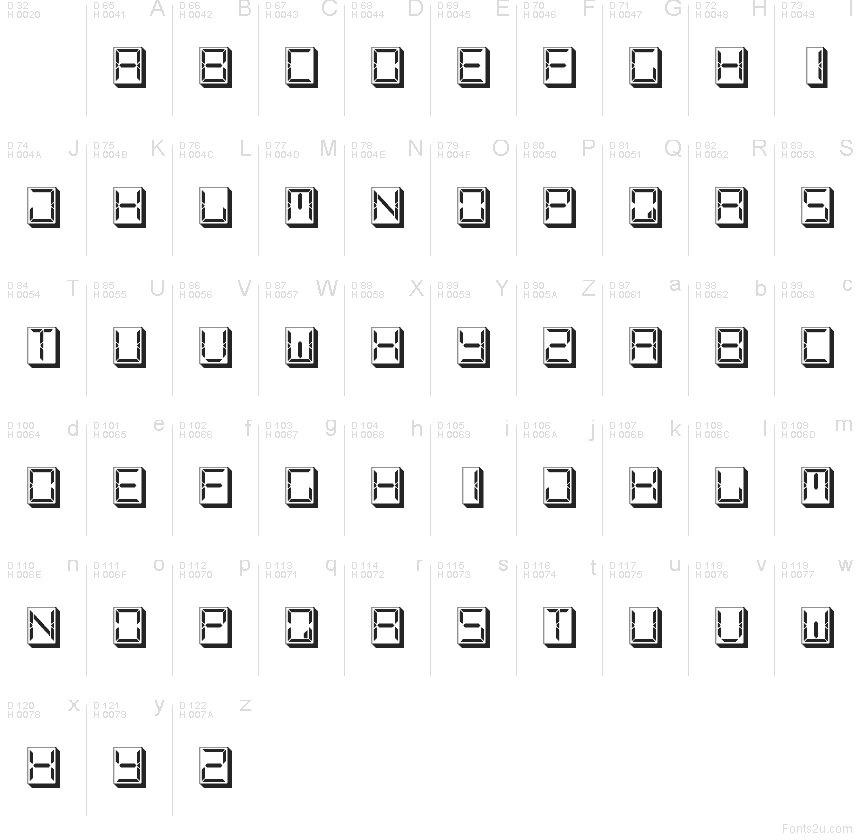
Tangramus Extravagant Regular
Tangramus Extravagant font by Vladimir Nikolic is a free digital display typeface that turns every word into a faceted puzzle. Each letter looks like it’s been folded from glossy paper tiles, with sharp angular cuts and a beveled inner edge that creates a built‑in 3D shimmer. The tight rhythm of the Tangramus family gives it a bold, blocky presence, while the hollow interiors keep it surprisingly airy and light on the page or screen.
Using Tangramus Extravagant, headlines snap into place like pieces of a neon game board, making it a natural fit for gaming logos, sci‑fi posters, EDM or synthwave album covers, esports branding, and bold event titles. This free font shines when used large, where its geometric facets and inner shadows really pop; pair it with a clean geometric sans serif in smaller text to keep layouts readable while letting Tangramus handle all the drama.